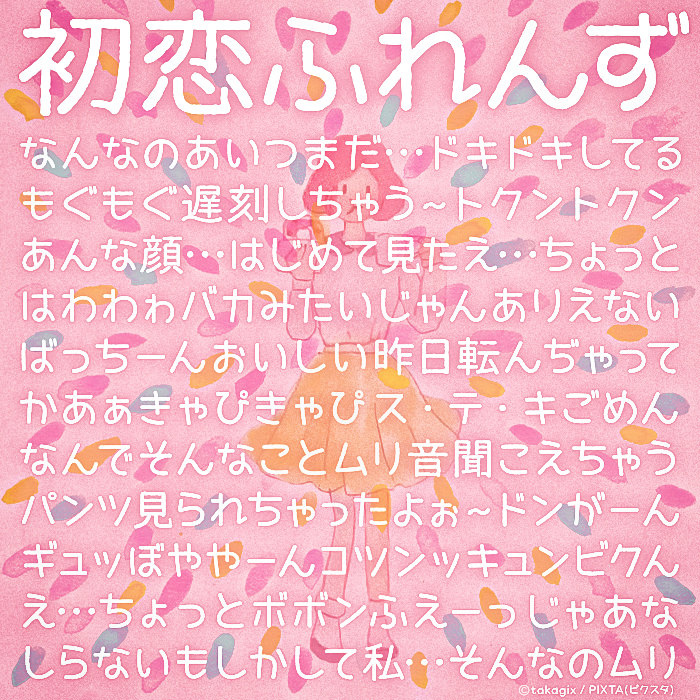
Hatsukoi Friends Font
Hatsukoi Friends Font is perfect for anime-inspired branding, manga typography, kawaii product design, Japanese culture marketing, friendship-themed projects, youth-oriented brands, cute character design, anime convention materials, manga publishing, and adorable social media content.
Hatsukoi Friends Font is exciting because it captures the heartwarming essence of first love and friendship with its endearingly sweet letterforms that evoke the innocent charm of Japanese anime and manga culture. Its delightful character design combines kawaii aesthetics with youthful energy, making it perfect for brands that want to communicate pure emotions, friendship bonds, and the magical feelings of young romance and companionship.
The Hatsukoi Friends Font family includes Regular weight, Bold variation, Light style, Cute alternates, Kawaii ornaments, Heart decorations, Friendship flourishes, and Anime elements, providing designers with comprehensive tools for creating authentically adorable typography that celebrates the beauty of friendship and innocent love in Japanese-inspired design.
Hatsukoi Friends Font Free Download brings authentic kawaii charm to projects celebrating friendship and young love, featuring carefully crafted letterforms that embody the sweet innocence of anime and manga storytelling. This adorable typeface combines Japanese pop culture aesthetics with universal themes of friendship, creating the perfect solution for brands targeting anime enthusiasts, manga readers, and audiences who appreciate cute, heartwarming design.
Whether you're developing anime-inspired brands, designing manga publications, creating kawaii product packaging, or producing friendship-themed content, Hatsukoi Friends Font provides the sweet foundation needed for authentic Japanese pop culture communication. Its kawaii character makes it particularly effective for anime merchandise companies, manga publishers, Japanese cultural brands, and youth-oriented businesses targeting otaku communities and anime fans.
Perfect for anime graphic designers, manga artists, kawaii brand developers, and creative professionals working with Japanese pop culture themes, this font offers the adorable qualities essential for successful anime market positioning. The typeface's charming nature ensures consistent cuteness across both digital anime platforms and traditional manga publishing materials.
Hatsukoi Friends Font includes comprehensive Japanese-inspired character sets, kawaii design elements, and heartwarming spacing that ensures adorable results in anime design applications. Its friendship-focused approach to typography makes it invaluable for brands celebrating anime culture and kawaii aesthetics. Embrace kawaii friendship with Hatsukoi Friends Font Free Download and create typography that truly warms the heart.